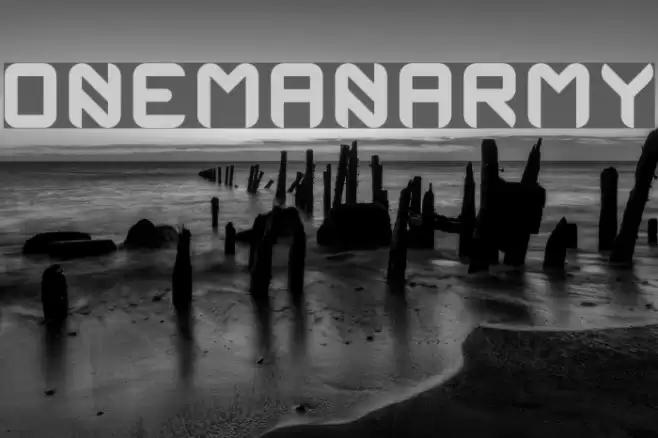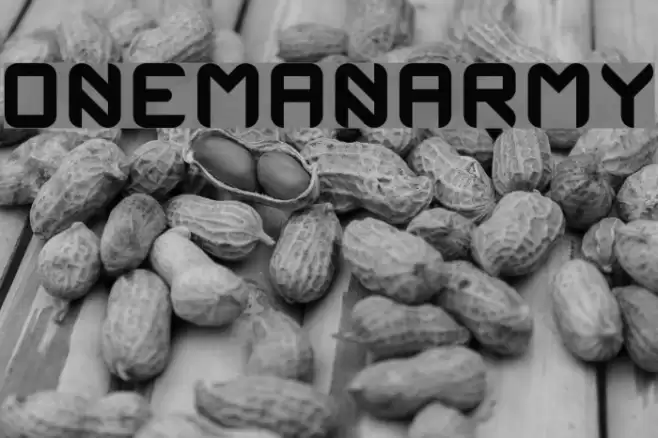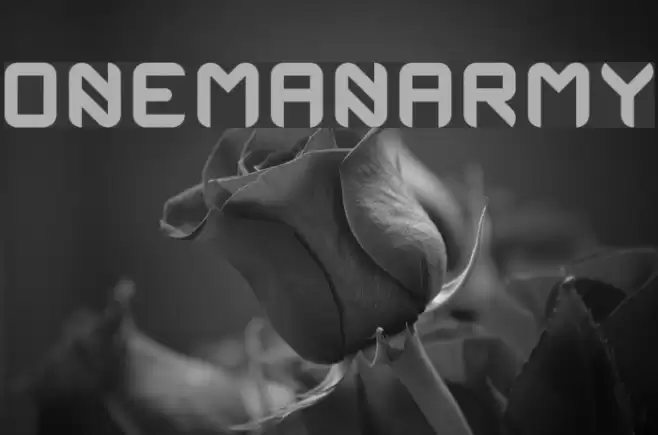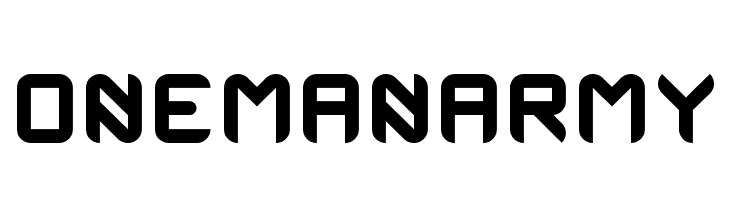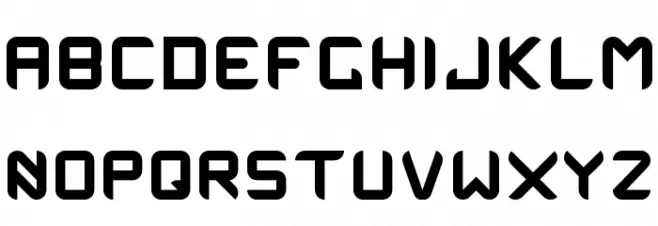
OneManArmy Font
OneManArmy Description
This font features a modern, geometric design with rounded edges and a uniform stroke width. The characters are bold and have a futuristic appeal, making them suitable for digital and tech-oriented projects. The uppercase letters are distinct with a slightly condensed appearance, while the lowercase letters maintain the same geometric style. The numerals are consistent with the overall design, ensuring readability and visual harmony. Special characters are crafted to match the bold, modern aesthetic, providing a cohesive look across all text elements.
A modern, geometric font with rounded edges and a bold, futuristic style from Sci-fi fonts.
- Proposed Projects: Ideal for technology branding, digital interfaces, video game design, and modern advertising.